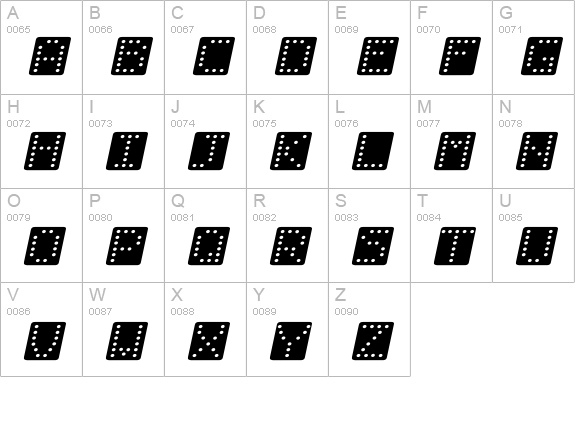
Domino Square Kursiv font is a modern and stylish typeface that exudes elegance and sophistication. Its unique design features sleek lines and sharp angles that make it perfect for adding a touch of sophistication to any project. This font is ideal for creating eye-catching logos, branding materials, or social media graphics. The best part about Domino Square Kursiv font is that it is available for free download at FontsMarket.com. You can easily access this sleek and contemporary font to elevate your designs without breaking the bank. Download Domino Square Kursiv font today and enhance your projects with its distinctive style and flair.